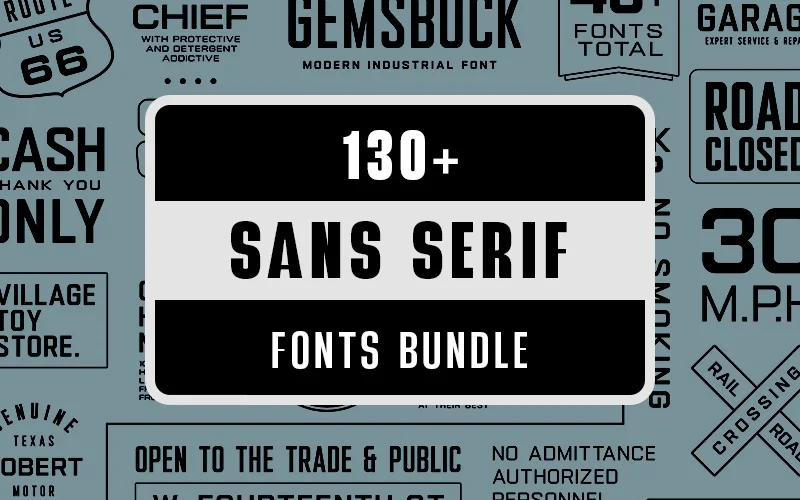
• 110+ Sans Serif Fonts Bundle with trendy font options from 6 different categories.
• It is apt for branding, logo projects, headings, advertising, packaging, web design, and other creative projects.
There are tons of Sans Serif fonts available but finding the right one is like finding a needle in a haystack! Introducing –
110+ Sans Serif Fonts Bundle
This 110+ Sans Serif Bundle offers trendy font options from 6 different categories to choose from. It has a variety of options from thin weight to black weight, from bold to narrow typefaces, and more.
This bundle is specially designed for the need for big visuals and deep emotional impact. This bundle will impart a firm Sans Serif that is usually used for industrial needs.
The Sans Serif Fonts Bundle is a collection of modern industrial fonts that provides various nuances that will color the user’s project. For example, the Gemsbuck collection is an ideal choice for creating calendars, analog watch dials, and apparel tags!
Whereas the Next Sphere is a super extended, bold, and futuristic display font family perfect for merchandising industry- paper bags, t-shirts, and soda cans.
The Horse Pro a unique Sans Serif font contains several weights to give the user an interesting experience! It is apt for branding, logo projects, headings, advertising, packaging, web design, and other creative projects.
Sans Serif Fonts Bundle Includes:
• Horse Pro: 14 Fonts
• Hagia Pro: 16 Fonts
• Gemsbuck Pro: 48 Fonts
• Next Sphere: 9 Fonts
• Hornsea FC: 20 Fonts
• Danson: 10 Fonts
• Rigid Display: 5 Fonts